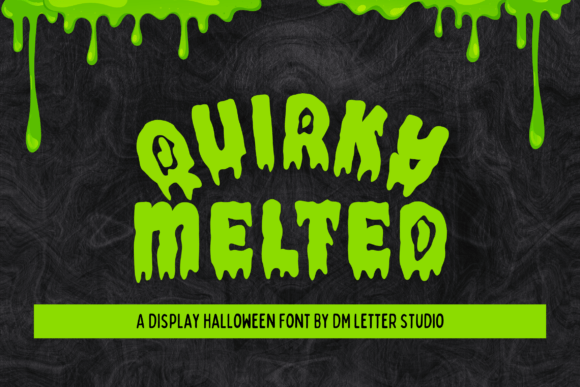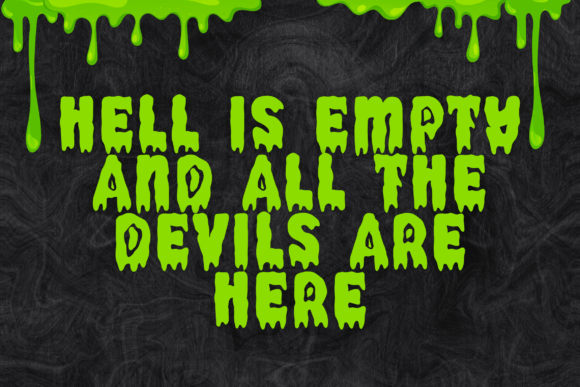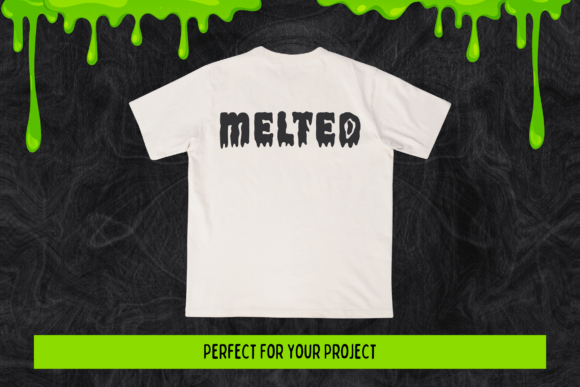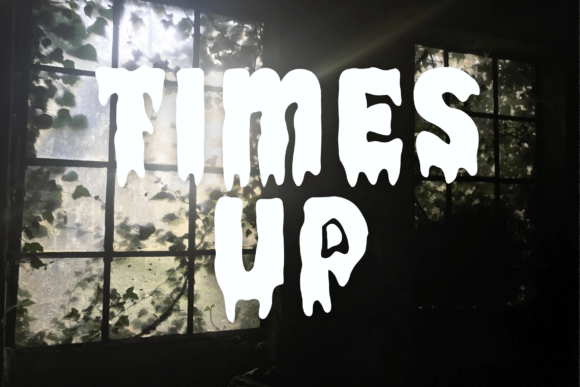
Quirky Melted Font
About the Quirky Melted Font
Introducing the Quirky Melted Font, a beautifully crafted typeface designed to elevate your creative projects. Quirky Melted is a fun and slightly spooky display font with gooey, melting letterforms. This font adds a lighthearted twist to eerie designs, making it perfect for Halloween events, creepy-cute branding, kids’ spooky crafts, and playful seasonal packaging. Its quirky drip style strikes a balance between fun and fright.
Quirky Melted excels in headlines, short taglines, and logos where its unique character can shine. It’s ideal for projects needing a playful yet slightly unsettling vibe—think Halloween promotions, children’s book covers, or quirky brand identities. Avoid using it for body text or lengthy paragraphs; the unconventional letterforms hinder readability in continuous text. It also isn’t suitable for UI applications requiring high legibility.
Pairing Quirky Melted with a clean sans-serif like Open Sans for body copy provides a strong contrast, balancing its playful energy with clear readability. For a more sophisticated feel, consider pairing it with a classic serif font such as Garamond or a slightly more geometric sans-serif such as Futura.
The font’s core personality is playful and slightly mischievous, with a bold and slightly irregular feel. It projects a fun, slightly spooky energy making it perfect for projects requiring a touch of whimsical darkness.
Quirky Melted Font Example